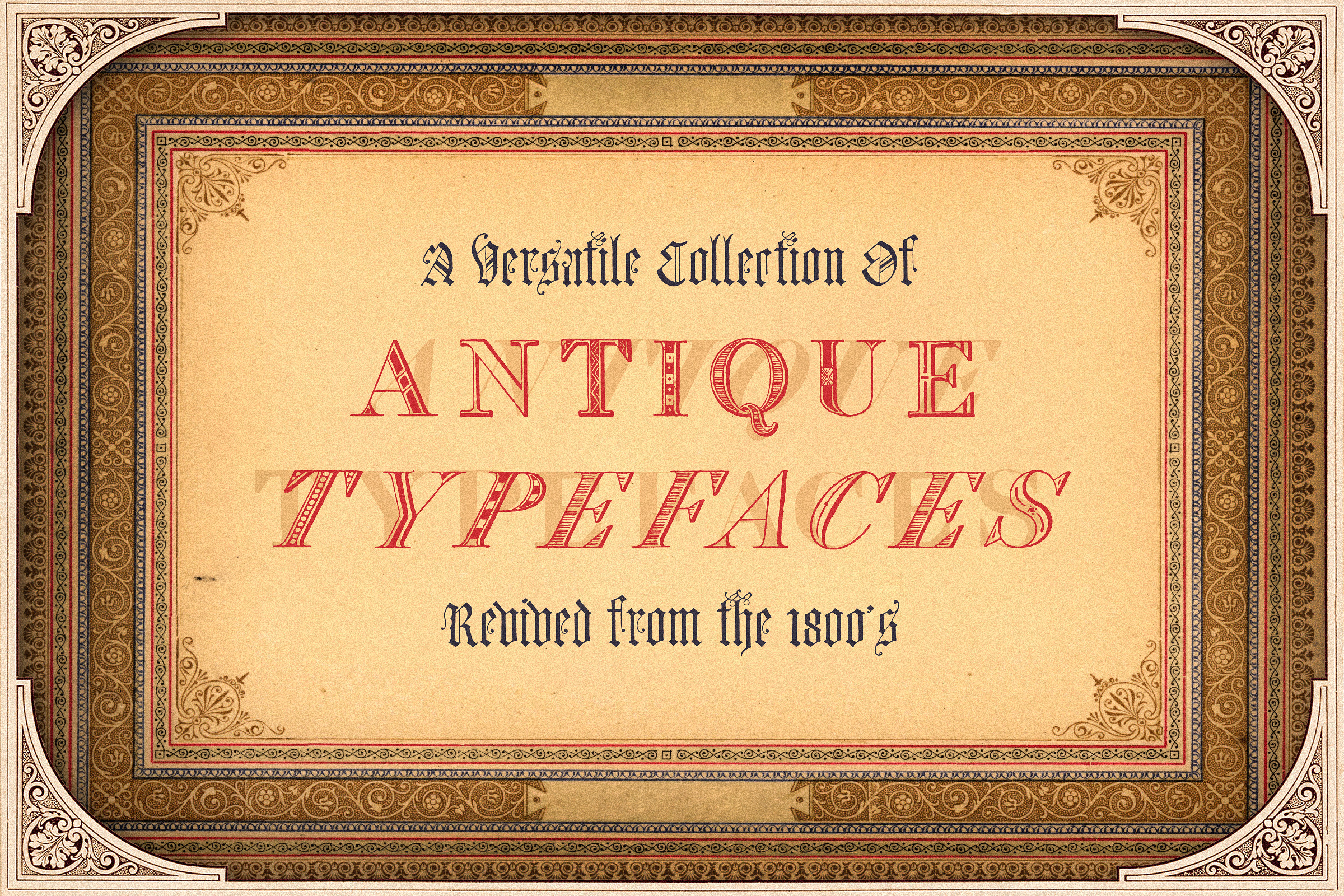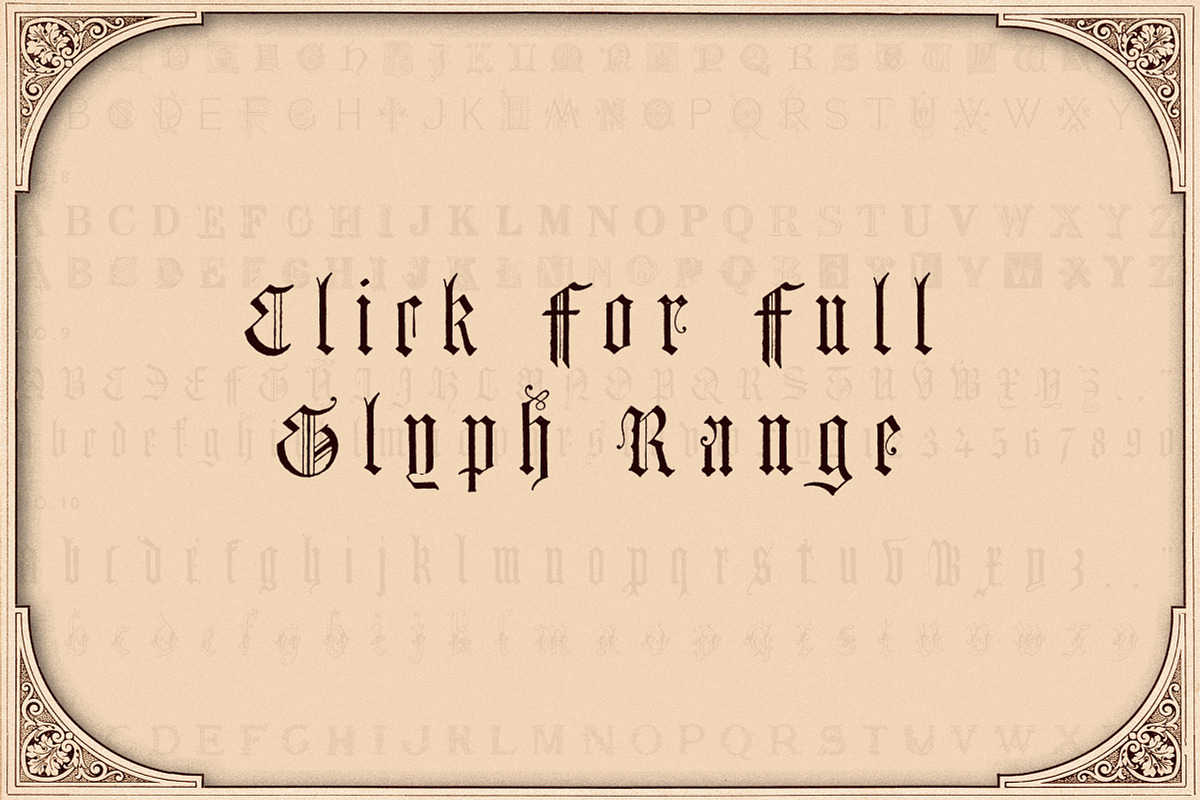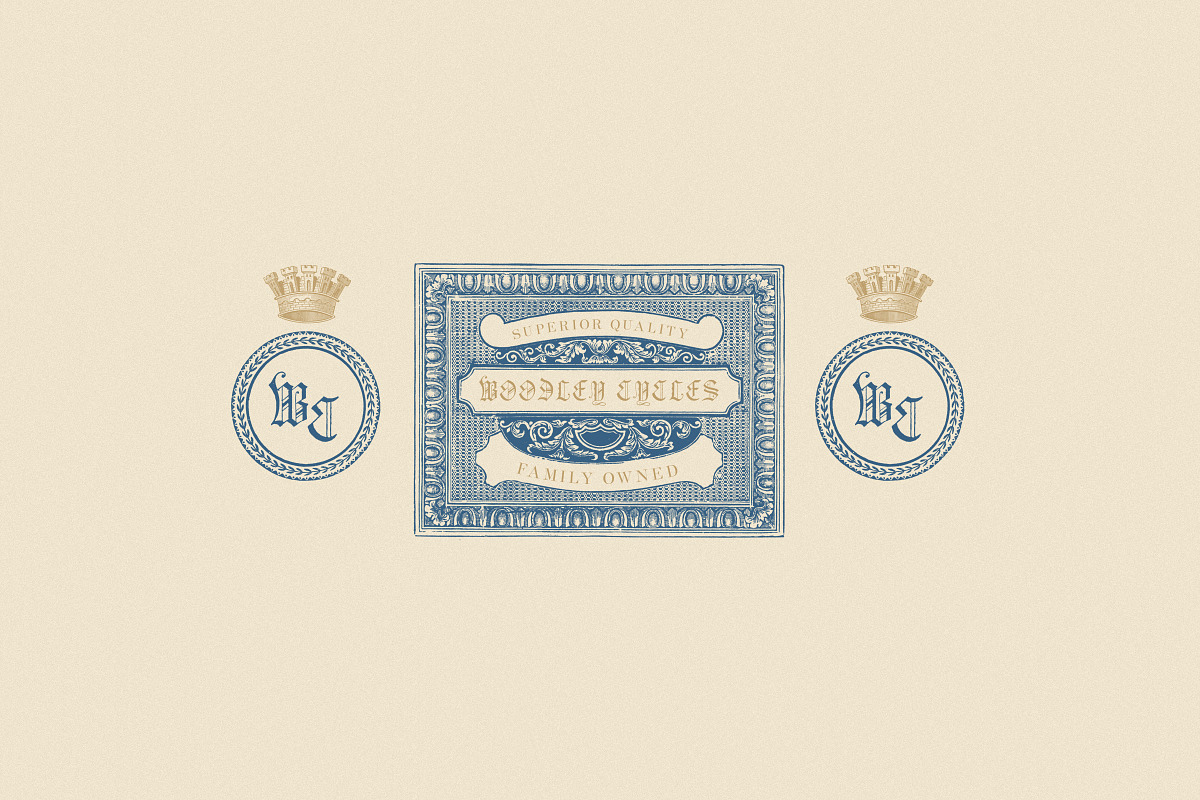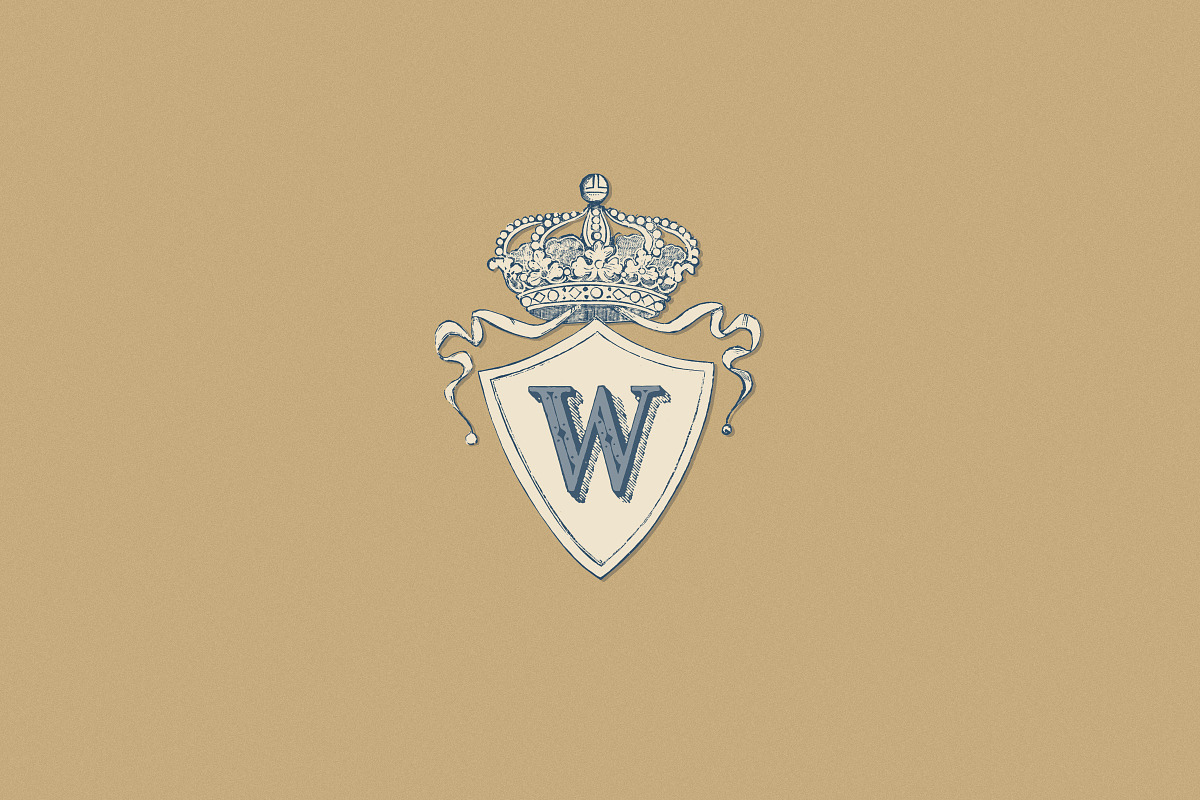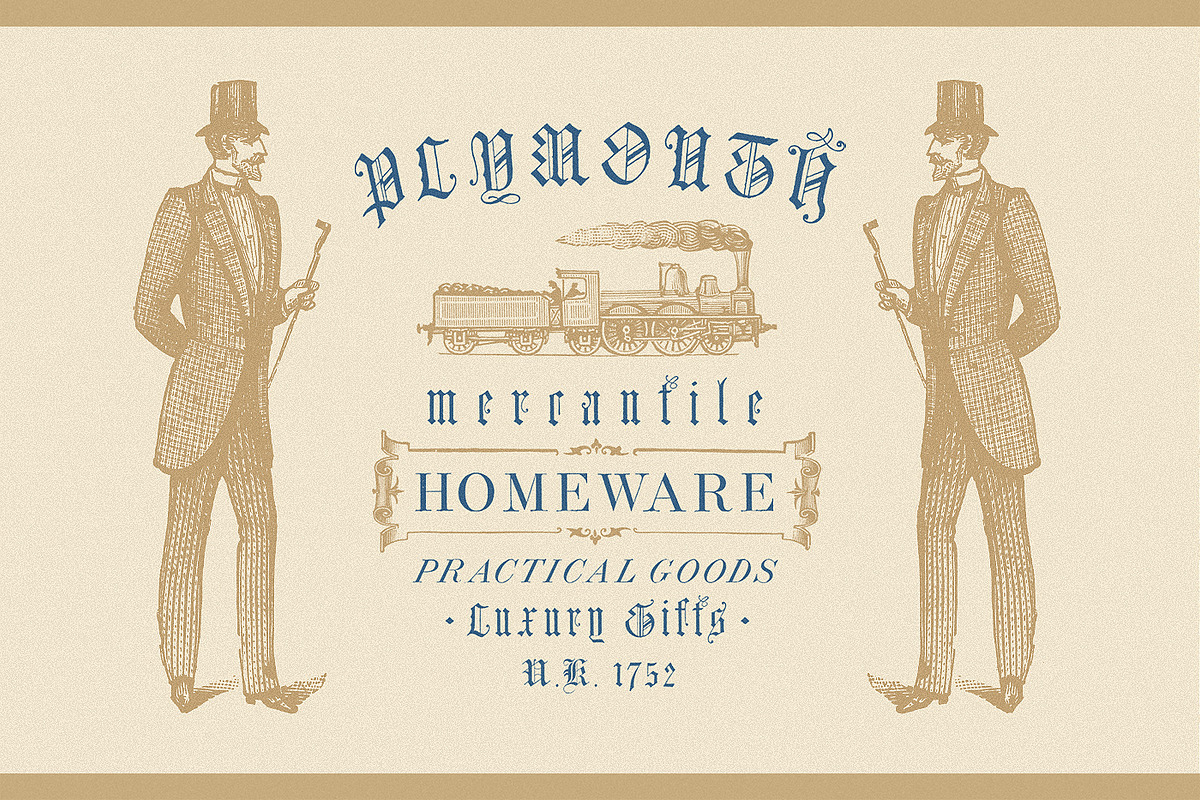
Antique Fonts Collection (12 Fonts!)
Introducing our versatile collection of Authentic Antique Typefaces
After uncovering a treasure trove of antique typefaces from the 1800's - I had to give them a second chance to thrive. While the glyph range is limited (full glyph ranges are included in the preview images), this collection has an unfathomable amount of potential!
While these Antique Typefaces have limited glyph ranges (glyphs for each are listed below), don’t let that fool you. The potential is huge and this collection is absolutely perfect for display purposes; Headlines, logos, slogans, etc.